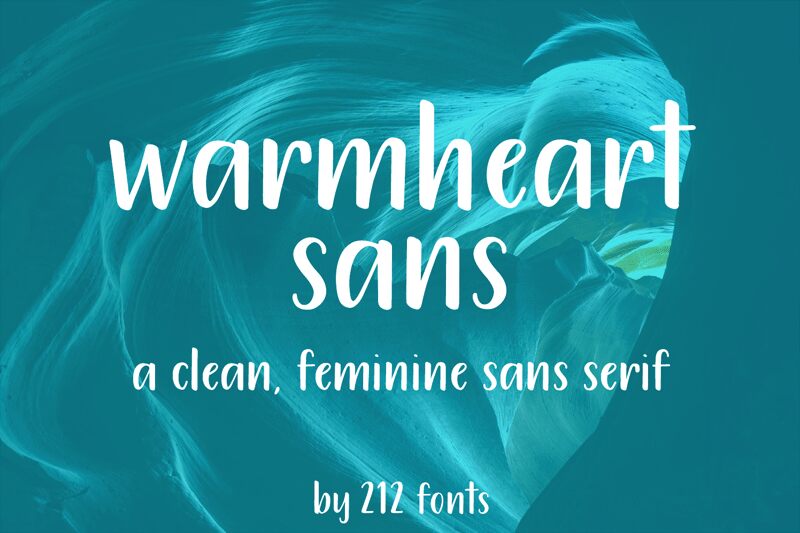
The 212 Warmheart Sans is an exquisite display font designed by Elizabeth McLain. Its semi-light weight and condensed width make it perfect for headlines, titles, and logos that require a touch of elegance. The script-style design adds a feminine flair to any project, making it ideal for wedding invitations, beauty products, or fashion blogs. Whether you're looking to create a sophisticated brand identity or add some visual interest to your website or social media posts, the 212 Warmheart Sans is sure to impress. With its unique and refined style, this font is bound to elevate any project it's used in.
Clean, feminine sans serif. Part of Warmheart Font Family by 212 fonts